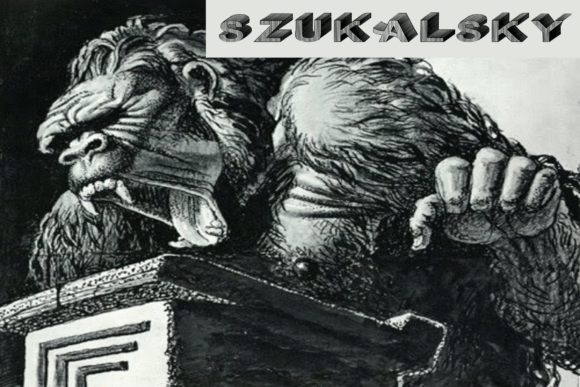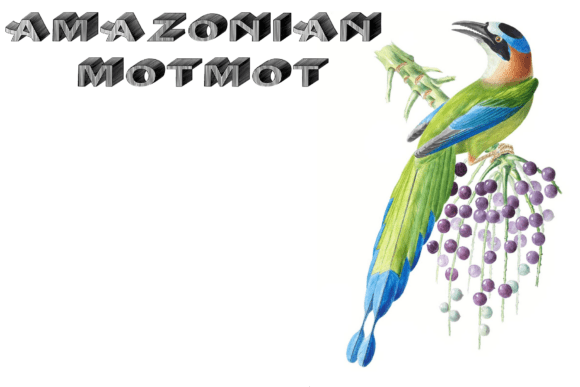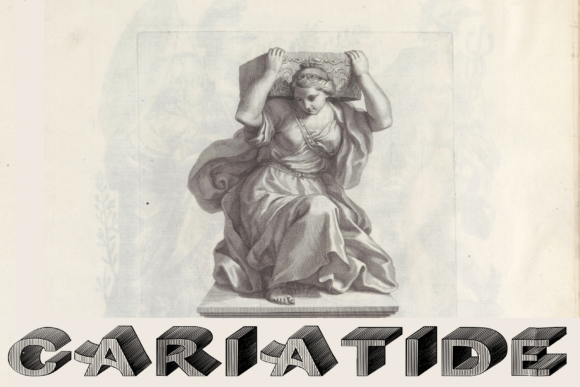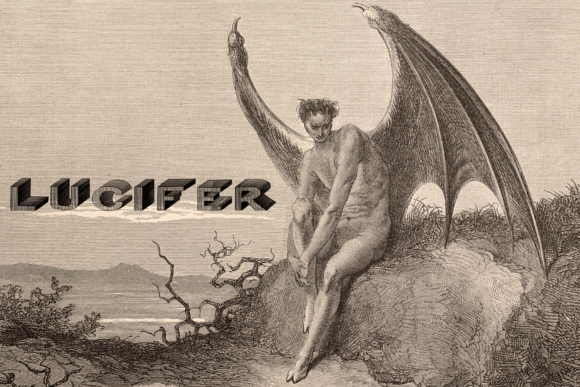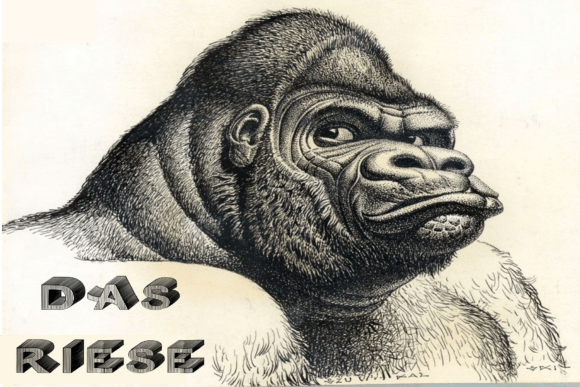
Discover the Timeless Elegance of Das Riese Font
Immerse yourself in the rich heritage of Das Riese, a remarkable type specimen masterminded by Brazil’s renowned type foundry, Intellecta Design. This distinctive blend of flaming Victorian charm and sophisticated Art Deco nuances births a visually stunning display type designed for upper-case tiling.
A Nostalgic Tribute to a Pre-Modern Era
Das Riese’s intriguing shadows and voluminous build pay a nostalgic tribute to a pre-modern era, while its surface displays a befitting nod to the iconic aesthetics of the 1920’s. The typeface boasts a hefty, sans-serif design with charismatic character strokes, featuring a unique parallel line texture reminiscent of Bifur, the influential 1929 typeface conceived by A.M. Cassandre.
Ingenious Design Elements
Ingeniously designed, Das Riese celebrates the engaging asymmetry at the right side of its prominent leaning letters, and the sporadic depth of its shadows. This accentuates its authentical handcrafted allure, forming a captivating type laden with historical nods and designed for rendering small titles at expanded sizes.
A Perfect Blend of Style and Heritage
Das Riese is a perfect blend of style and heritage, making it an ideal choice for designers and crafters looking to add a touch of elegance and sophistication to their projects. The typeface’s unique design elements, such as its parallel line texture and asymmetrical lettering, make it stand out from other typefaces and give it a distinctive look.
Historical Influences
Das Riese draws inspiration from the iconic typefaces of the past, including Bifur, a influential typeface designed by A.M. Cassandre in 1929. The typeface’s Victorian charm and Art Deco nuances make it a fitting tribute to the design era of the 1920s.
Key Features of Das Riese Font
- Distinctive blend of Victorian charm and Art Deco nuances
- Hefty, sans-serif design with charismatic character strokes
- Unique parallel line texture reminiscent of Bifur
- Asymmetrical lettering with engaging asymmetry at the right side of prominent leaning letters
- Sporadic depth of shadows adds to its authentical handcrafted allure
- Designed for rendering small titles at expanded sizes
Why Choose Das Riese Font?
Das Riese is an excellent choice for designers and crafters looking to add a touch of elegance and sophistication to their projects. Its unique design elements, historical influences, and versatility make it an ideal choice for a wide range of applications, from branding and advertising to packaging and editorial design.
Tips for Using Das Riese Font
Here are some tips for using Das Riese font effectively:
- Use it for display purposes: Das Riese is designed for display purposes, so use it for titles, headings, and other prominent text elements.
- Experiment with different sizes: Das Riese looks great at large sizes, but it can also be used effectively at smaller sizes.
- Pair it with other fonts: Das Riese can be paired with other fonts to create a unique and visually appealing typography.
Das Riese is a remarkable type specimen that is sure to impress designers and crafters alike. Its unique blend of Victorian charm and Art Deco nuances, combined with its ingenious design elements, make it a timeless and elegant choice for any project. Whether you’re looking to add a touch of sophistication to your branding, advertising, or editorial design, Das Riese is an excellent choice.